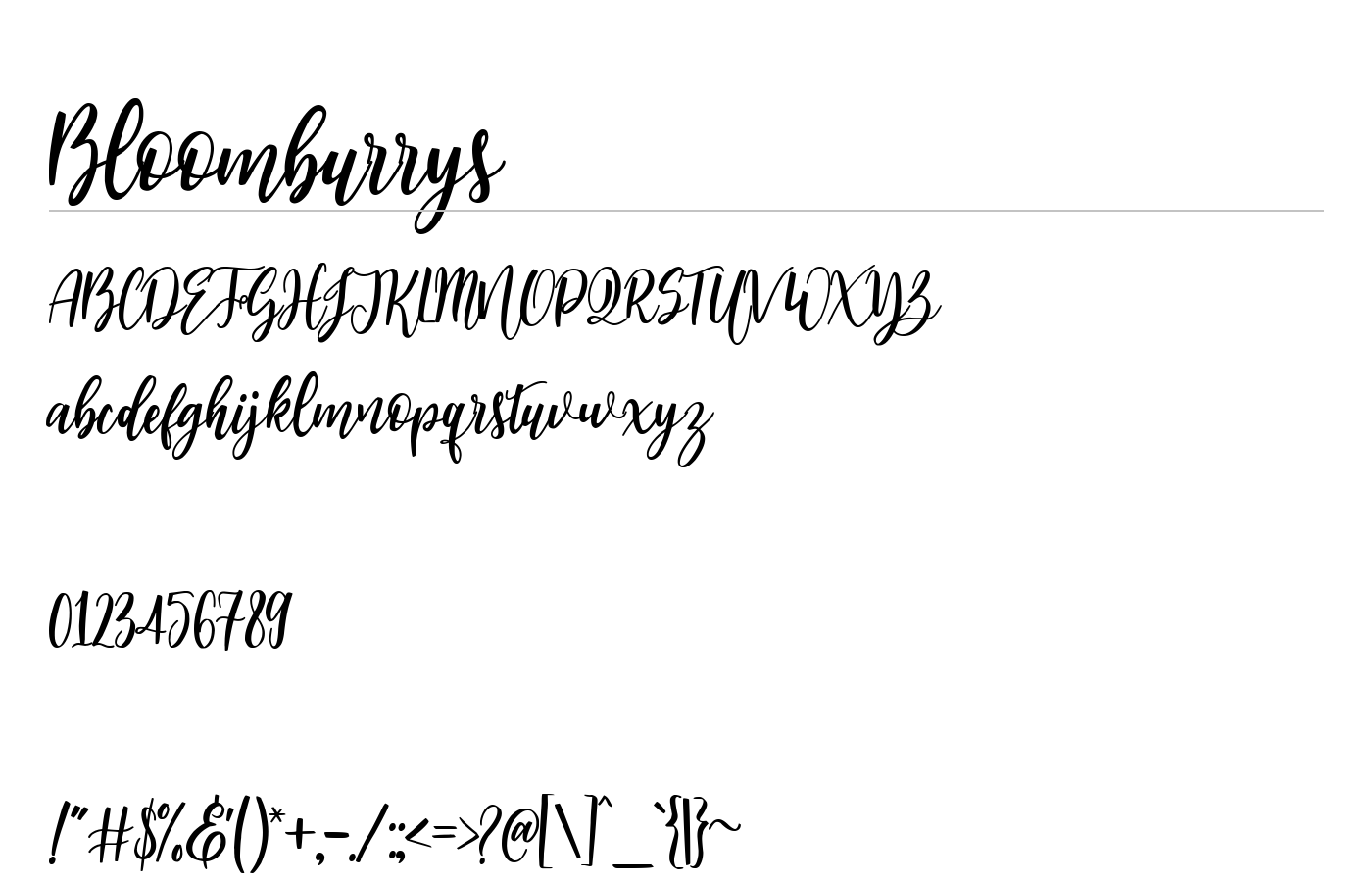
Bloomburrys is a stylish script font characterized by its fluid, hand-lettered look with elegant, sweeping strokes that create a sense of warmth and charm. Its medium weight and moderate contrast offer good readability while maintaining a playful yet sophisticated personality, making it perfect for branding, invitations, and creative projects that require a personal, artistic touch. This font shines in uses where a lively, decorative flair is desired, such as logos, packaging, and headlines, adding a handcrafted elegance without sacrificing clarity.
Bloomburrys Font
About Bloomburrys Font
| Font family | Bloomburrys Font |
| Designer | zamjumpstudio | Zamzamy Ahmad | |